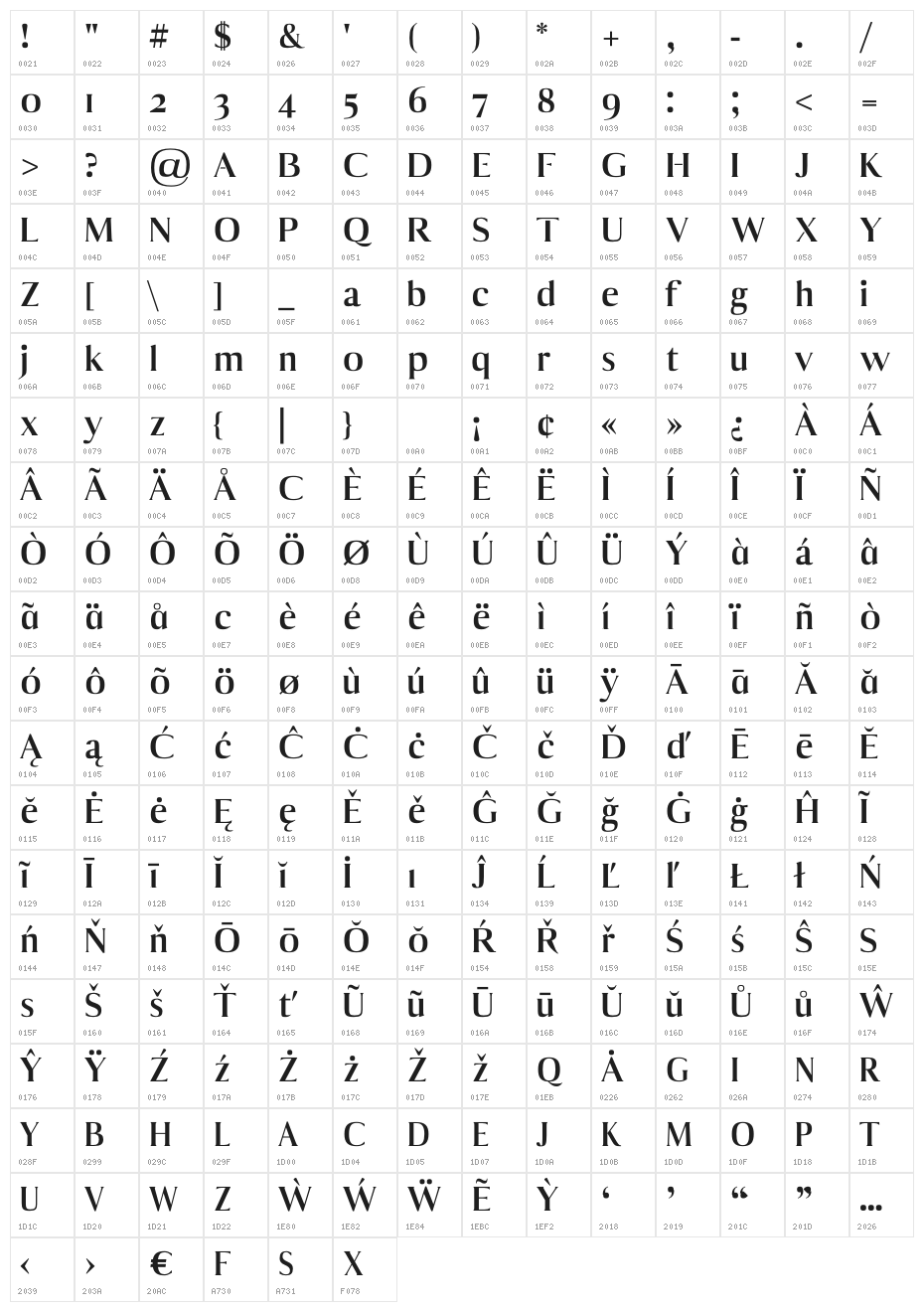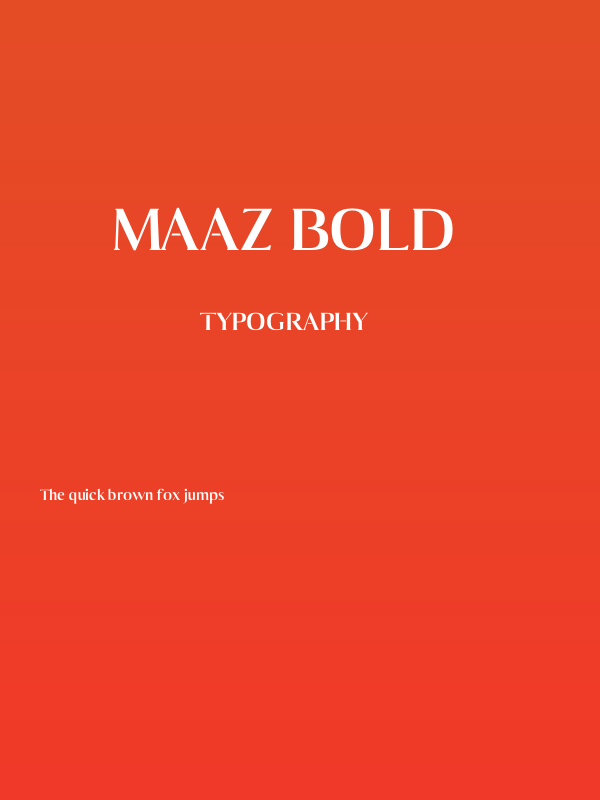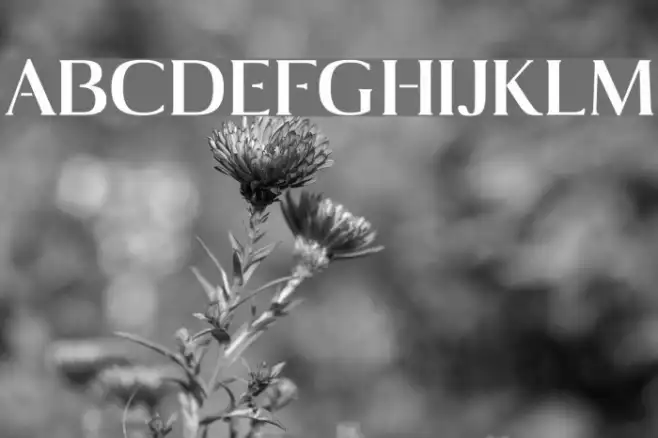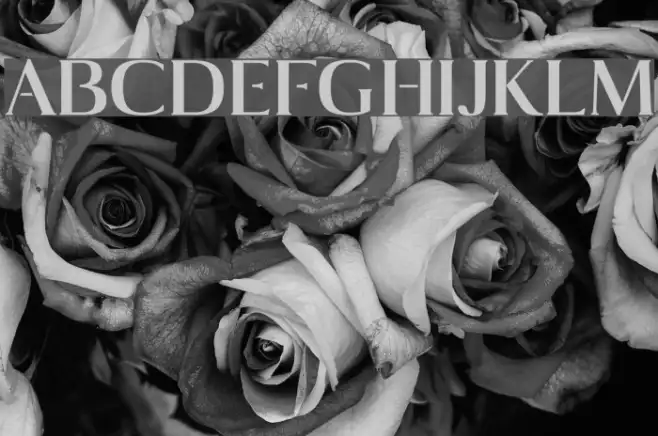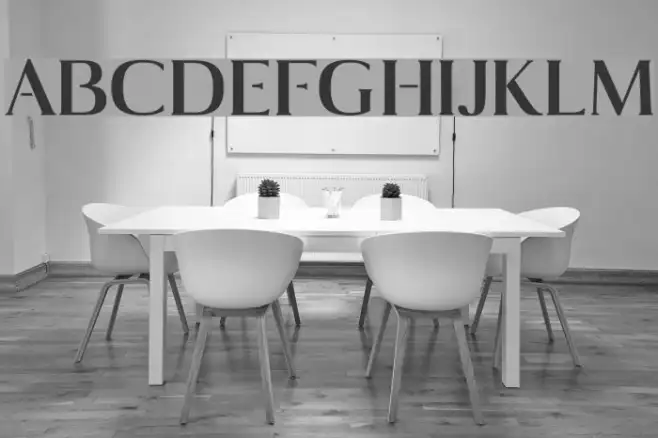
Maaz Bold Font
Maaz Bold Description
This font features a bold and striking design with high contrast between thick and thin strokes, giving it a dramatic and elegant appearance. The serifs are pronounced, adding a touch of sophistication and classic appeal. The uppercase letters are tall and commanding, while the lowercase letters maintain a consistent style with slightly rounded edges. The numerals are clear and distinct, ensuring readability. Special characters are well-integrated, maintaining the overall aesthetic. This font is ideal for making a strong visual impact.